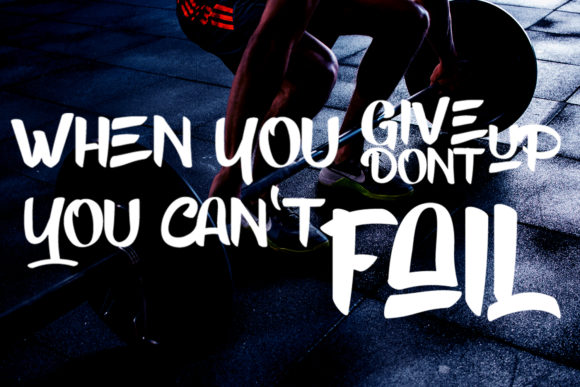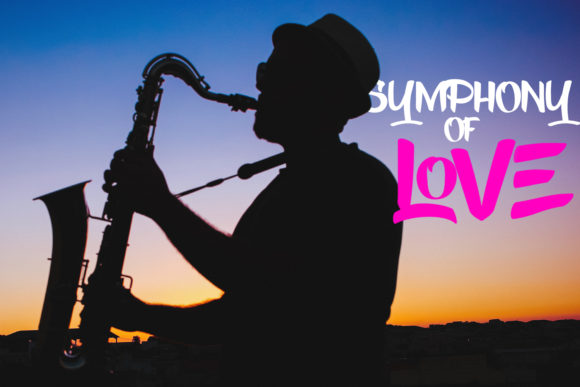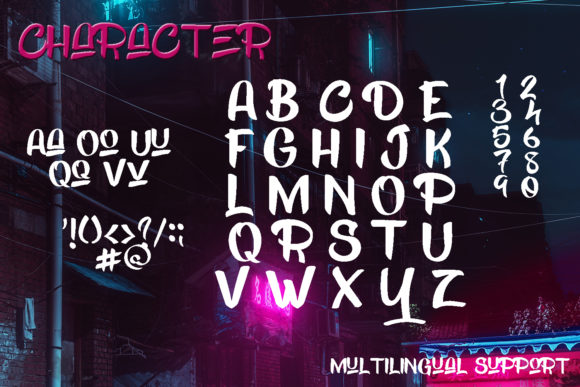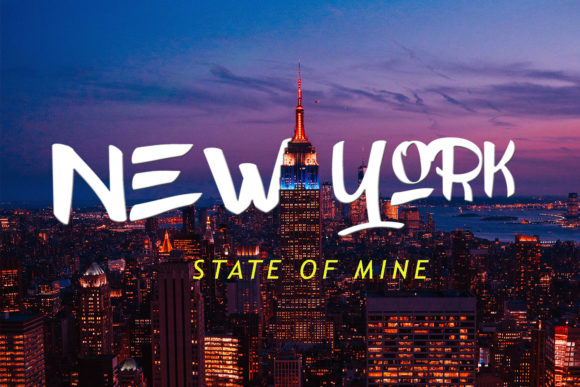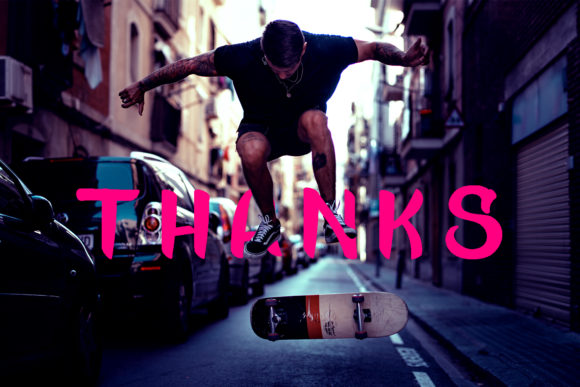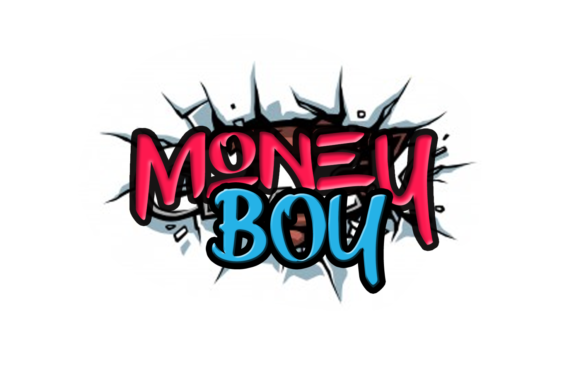
Introduction to Kick Slipe Font
As a designer, have you ever been stuck on a project, trying to find the perfect font to give it that extra oomph? I know I have. But what if I told you that there’s a font that can instantly elevate your creative project and give it a cool, urban vibe? Enter the Kick Slipe Font, a powerful and bold display font with a contemporary twist.
Imagine being able to download a high-quality font that’s perfect for your next design project, and having the flexibility to use it with a transparent background. The Kick Slipe Font is a valuable resource for designers looking to add some edge to their work. With its sleek and modern design, it’s the perfect addition to any design project, whether you’re working on a free download or a paid gig.
Key Features of Kick Slipe Font
- Unique, stylish font with a transparent background for easy customization
- Perfect for designers and artists working on digital projects, including graphics, logos, and more
Honest Review: Kick Slipe Font
As a designer, I’m always on the lookout for high-quality design resources that can elevate my creative projects. Recently, I came across the Kick Slipe Font, and I’m excited to share my honest review with you.
- ✨ Unique and quirky style that adds a touch of personality to any design project.
- ✨ Highly versatile, making it suitable for a wide range of creative projects, from logos to social media graphics.
- ✨ Comes with a transparent background, making it easy to customize and integrate into any design.
While the Kick Slipe Font has its strengths, there are some limitations to consider:
- ⚠️ Limited character set, which may not be suitable for longer texts or complex typography projects.
- ⚠️ May not be as polished or refined as some other commercial fonts, but this is also part of its charm.
Overall, I’m impressed with the Kick Slipe Font’s unique style and versatility. It’s a great addition to any designer’s toolkit, and I’d definitely recommend it for creative projects that require a bit of personality and flair.
Tips for Getting the Most Out of Kick Slipe Font
To maximize the use of Kick Slipe Font, consider using it with a transparent background to create a modern and sleek design aesthetic. You can also experiment with different font sizes and colors to achieve a unique look.
Common Use Cases for Kick Slipe Font
Kick Slipe Font is ideal for creating eye-catching headings, titles, and text overlays for various design projects, such as social media graphics, blog posts, and marketing materials. Its high-quality design makes it a great addition to any creative project requiring a stylish and modern font.
Yes, the Kick Slipe Font has a transparent background, making it ideal for use in graphic design, digital art, and other creative projects where a transparent font is required. The transparent background allows for seamless integration with other design elements.